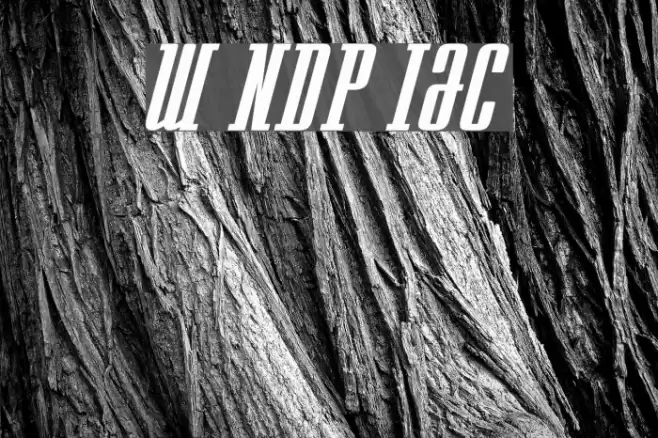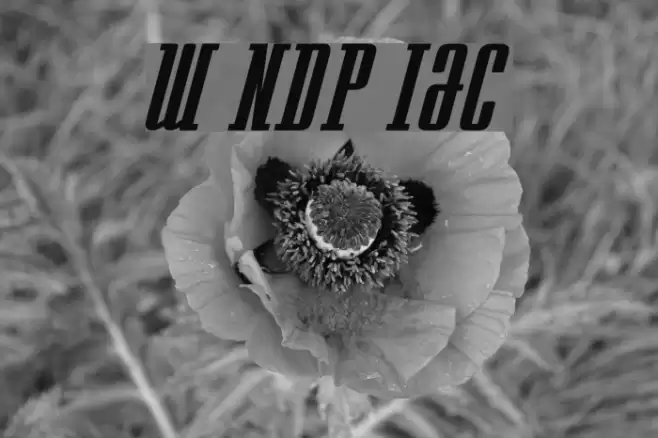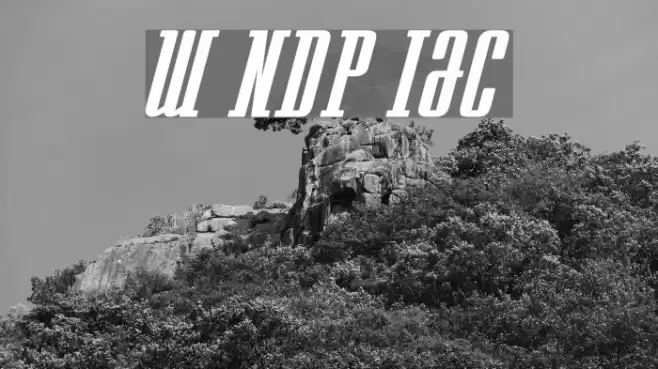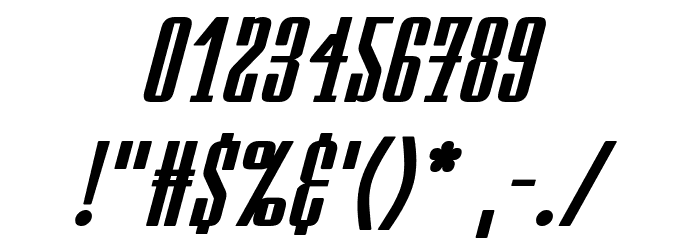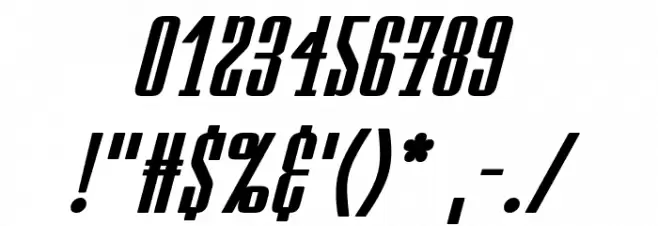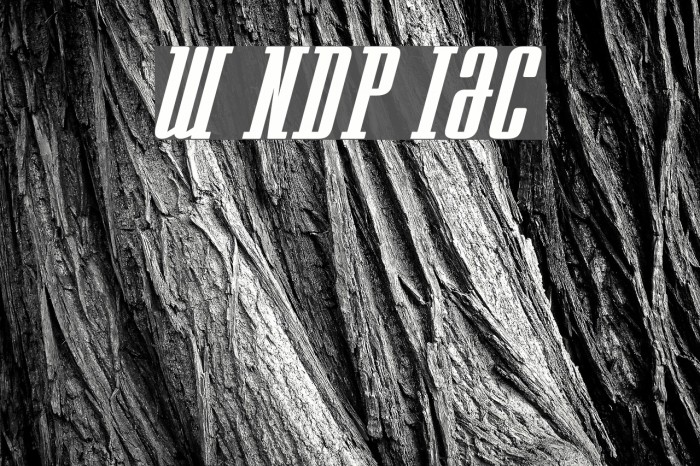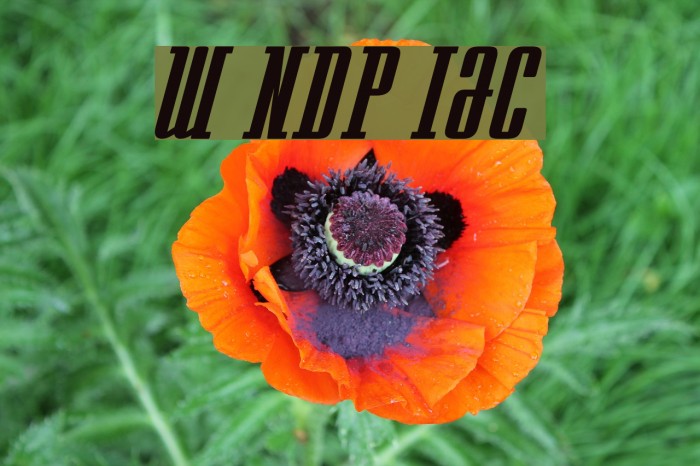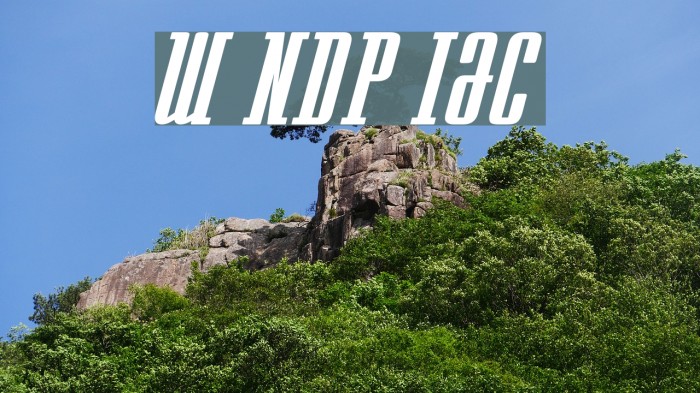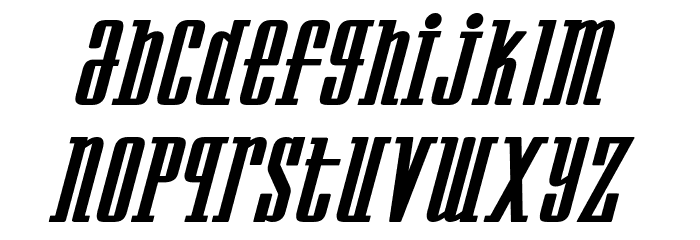
Westminster NDP Italic Font
Westminster NDP Italic Description
This font features a bold and dynamic style with a distinct italic slant, giving it a sense of motion and energy. The characters are tall and narrow, with sharp serifs that add a touch of elegance and sophistication. The uppercase and lowercase letters maintain a consistent design, with the lowercase letters being slightly more condensed. The numerals are clear and easy to read, matching the overall aesthetic of the alphabet. Special characters are well-integrated, maintaining the font's cohesive look. This font's unique style makes it stand out, suitable for projects that require a strong visual impact.
A bold, italic serif font with a dynamic and elegant style from Serif fonts.
- Proposed Projects: Ideal for branding, headlines, posters, and any design that requires a striking and sophisticated look.
- Character Spacing: Tight